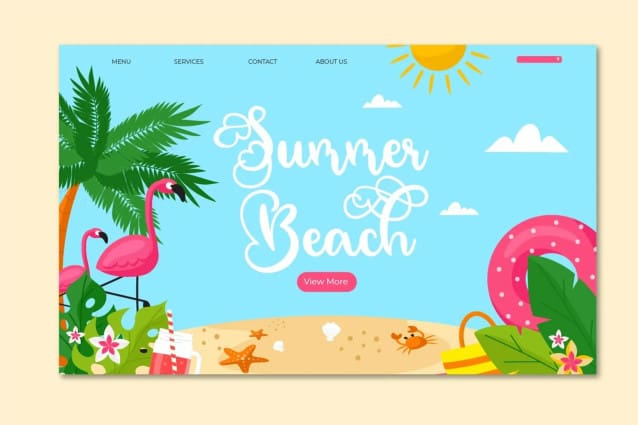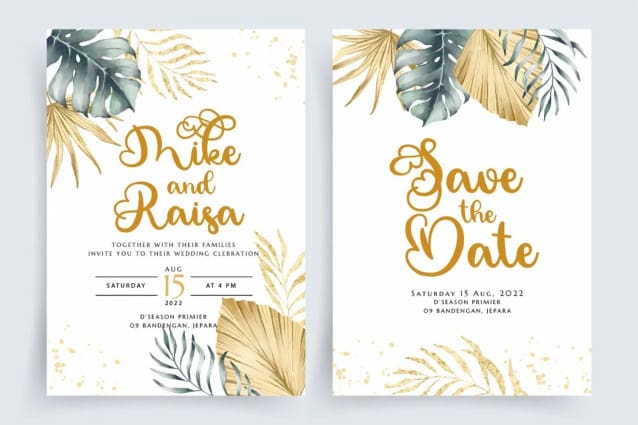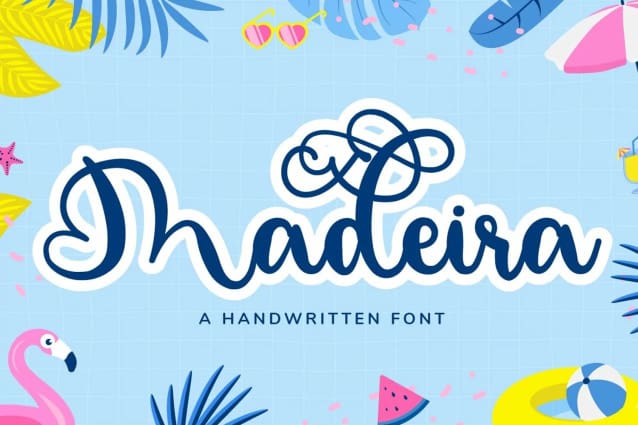
Madeira Script Font
Madeira Script Font is a delicate, elegant and flowing handwritten font. It has beautiful and well balanced characters and as a result, it matches a wide pool of designs. Madeira features a varying baseline, smooth lines, gorgeous glyphs and stunning alternates. Add it to your most creative ideas and notice how it makes them come alive!